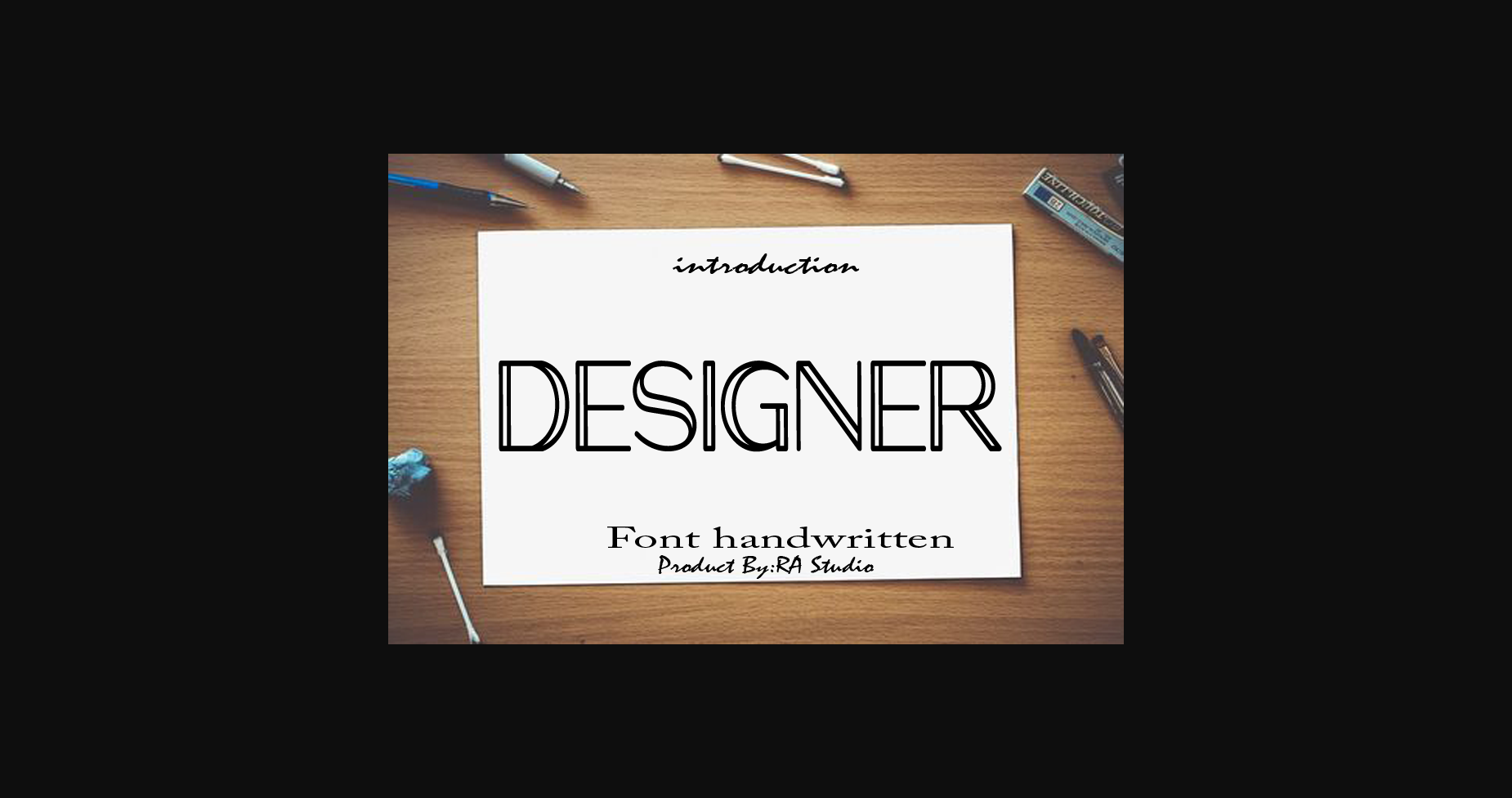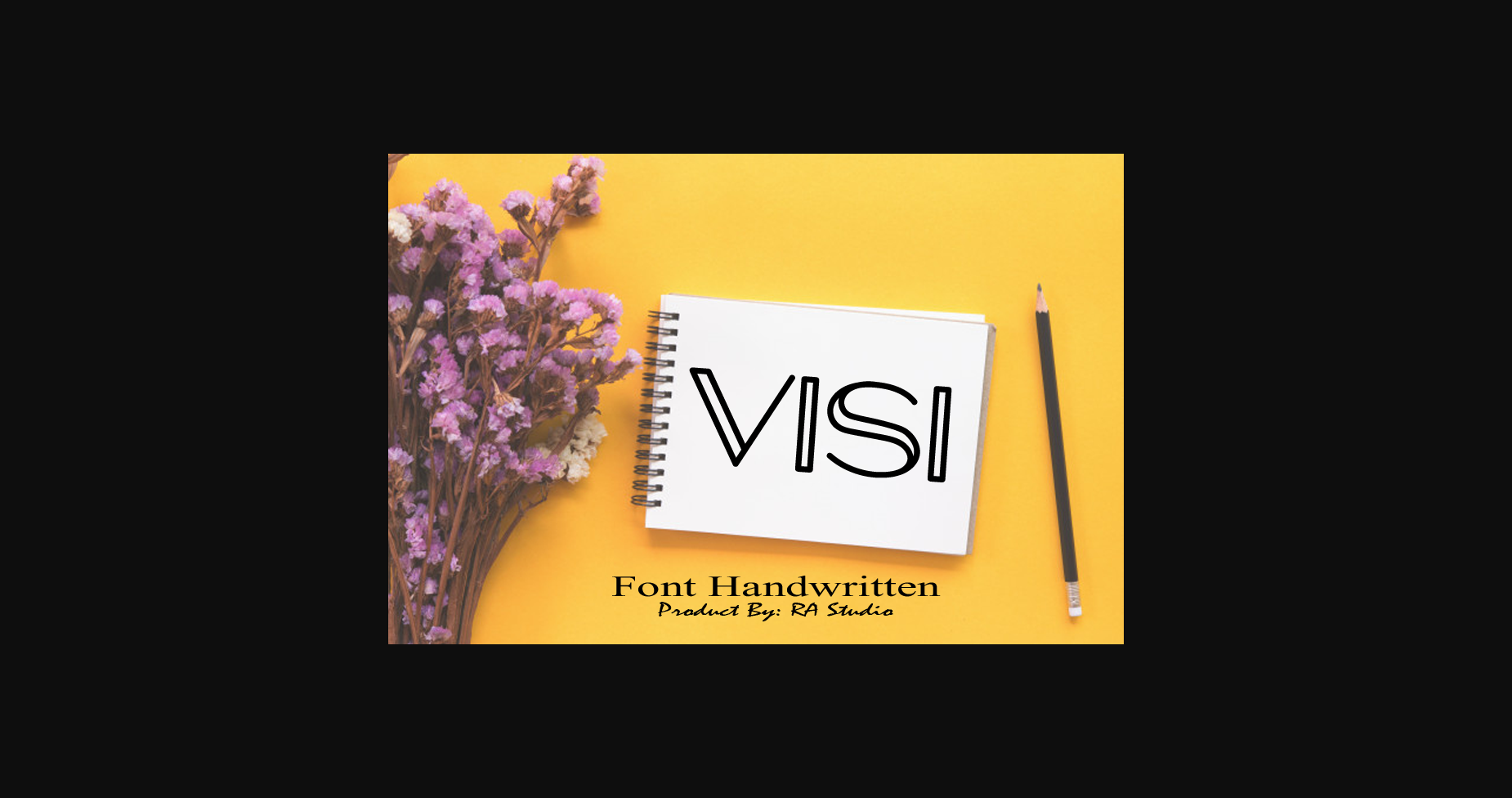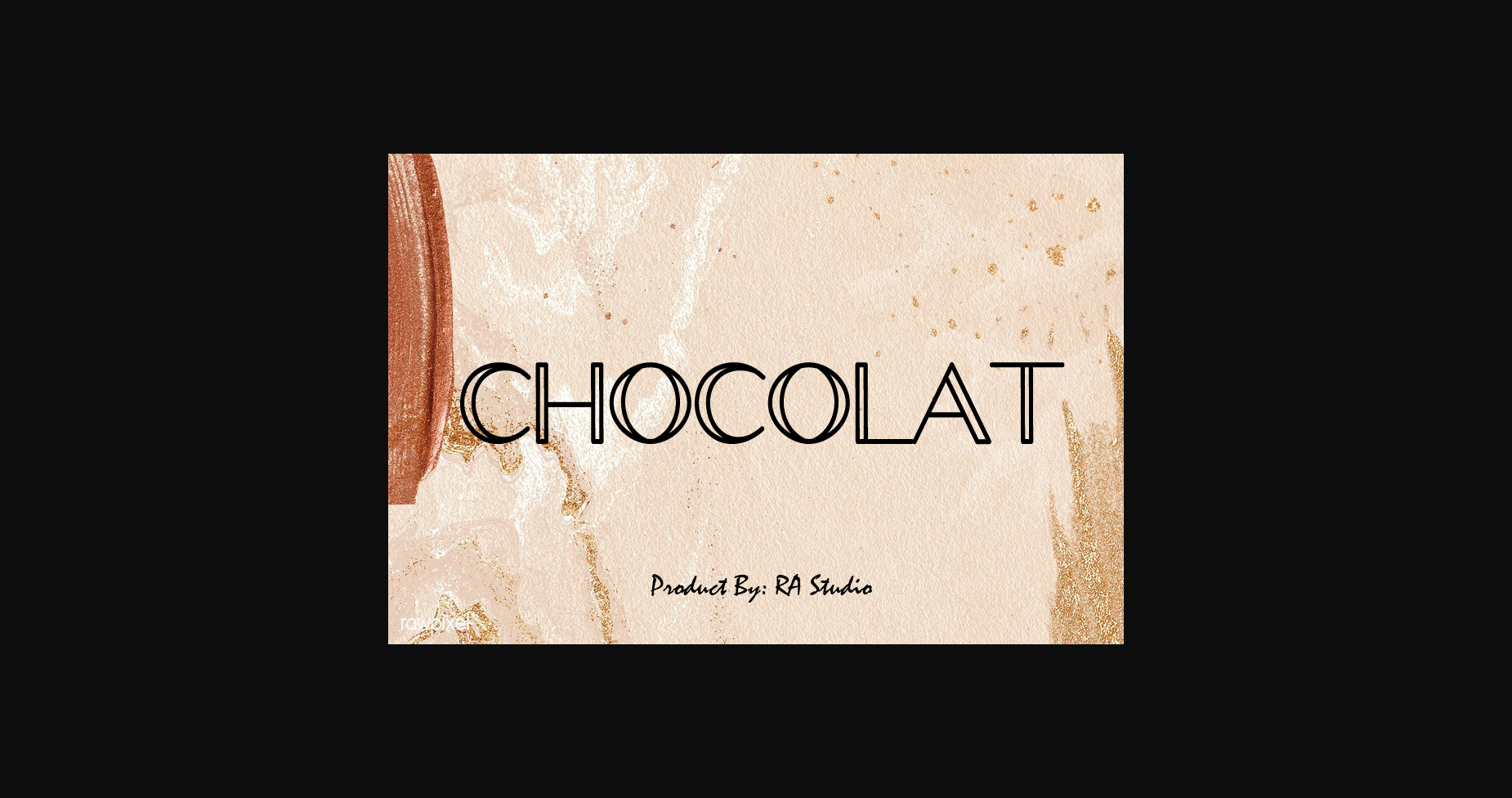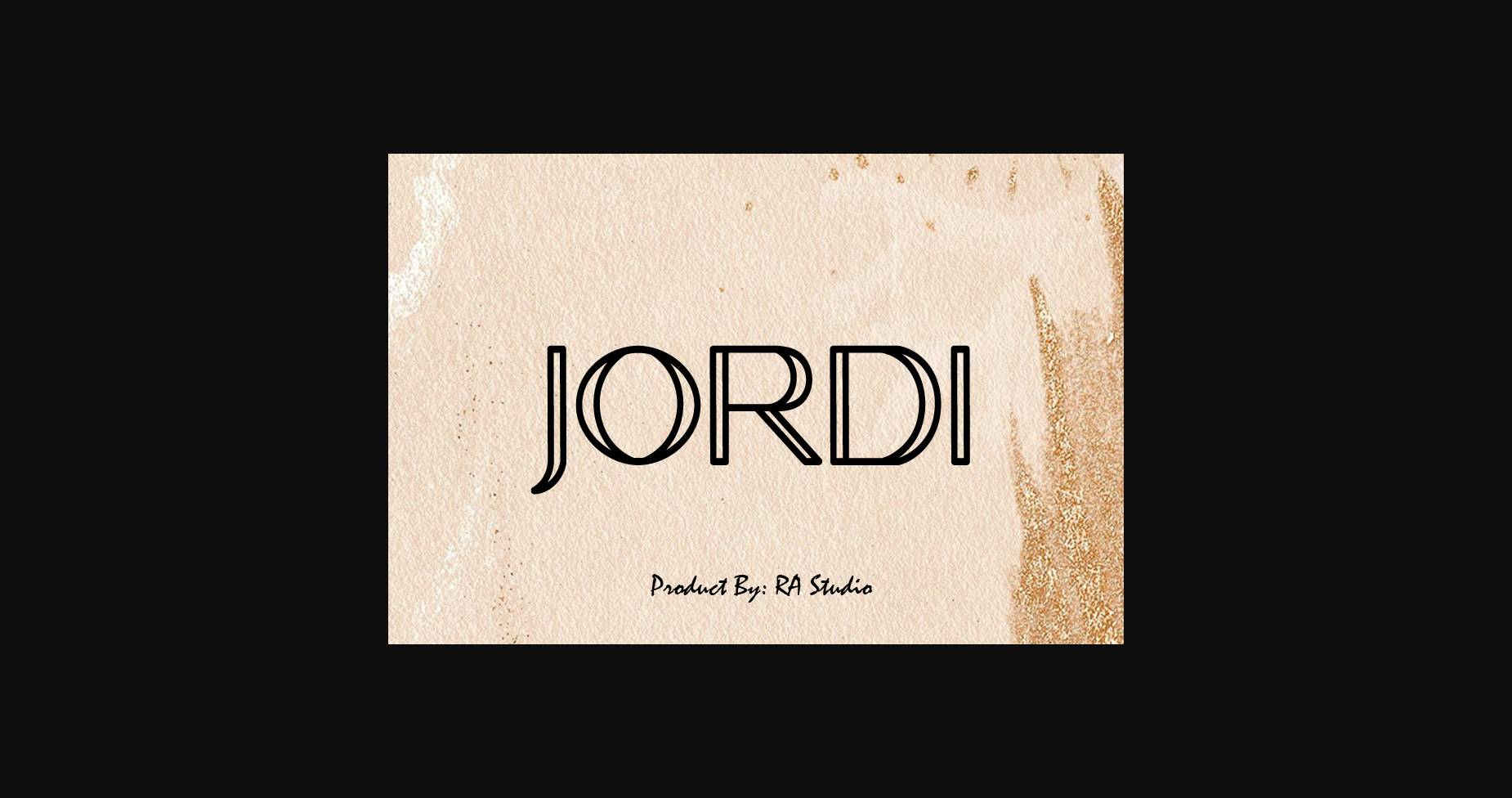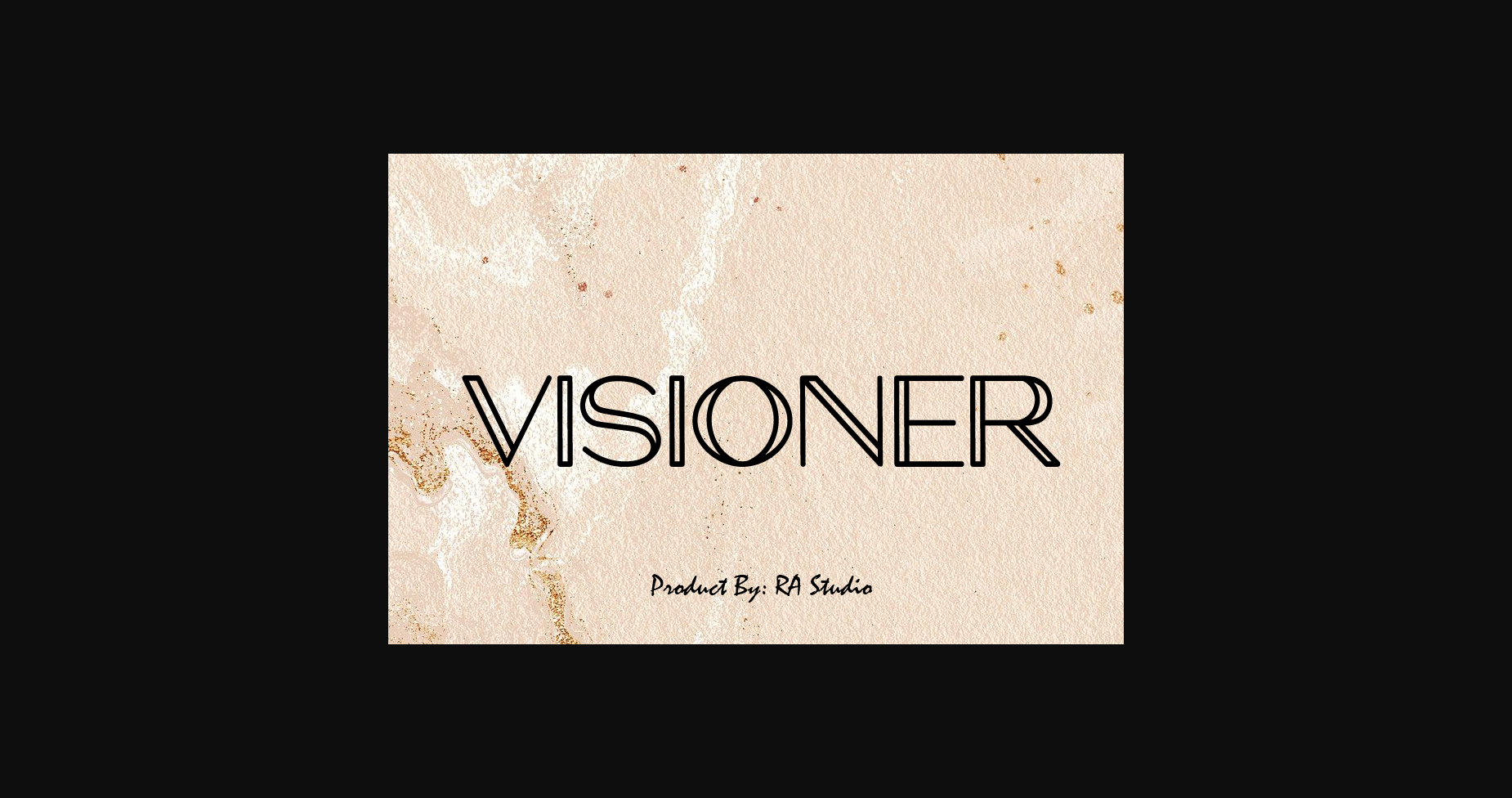
HomeSans Serif FontsDesigner Font Sans Serif Fonts Designer Font FacebookXPinterestWhatsApp 1 of 7 ... Designer Font Poster 2... Designer Font Poster 3... Designer Font Poster 4... Designer Font Poster 5... Designer Font Poster 6... Designer Font Poster 7... About Designer Font Designer is a stylish and incredibly elegant sans serif font. It looks stunning on wedding invitations, thank you cards, quotes, greeting cards, logos, business cards, and any other design that needs a handwritten touch. DOWNLOAD NOW People also explored Black Eyed Susan Split Font Resolve Sans Just Believe Font Boney Font Saviena Font Wedding Day Font Homework Font Edrosa Font The Bridgeta Font 377 0 TagsDesigner Font Previous articleRoclette FontNext articlePicture of You Font LEAVE A REPLY Cancel reply Comment: Please enter your comment! Name:* Please enter your name here Email:* You have entered an incorrect email address! Please enter your email address here Website: Save my name, email, and website in this browser for the next time I comment. Personal Use Free BD Spinner Personal Use Free Read more about this font Milda Personal Use Free Read more about this font Delions Personal Use Free Read more about this font Predators Personal Use Free Read more about this font BLOG Free vs Paid Fonts: Why Investing in Premium Fonts Is Worth It Free vs Paid Fonts: Why Premium Fonts Are Worth It in 2025 The debate of free vs paid fonts continues in the design world. While... Transform Your Website: Elevate Your Typography with 7 Best Web Font Generators Top 10 Handwritten Fonts That Elevate Your Designs Using Fonts in Digital Marketing: Tips to Strengthen Your Brand Identity